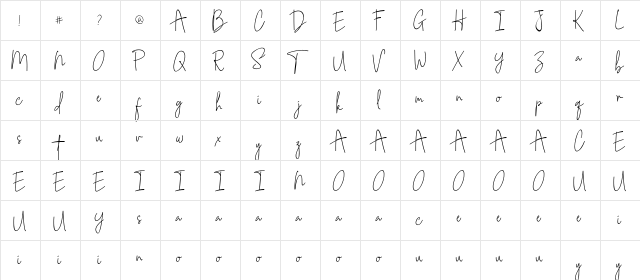
Southampton Regular
| Foundry | Creatype Studio Co. |
| Designer | Rian Rahardi |
Design Context for Southampton Typeface
Southampton is a composed and adaptable typeface that performs quietly and consistently across a wide range of design contexts.